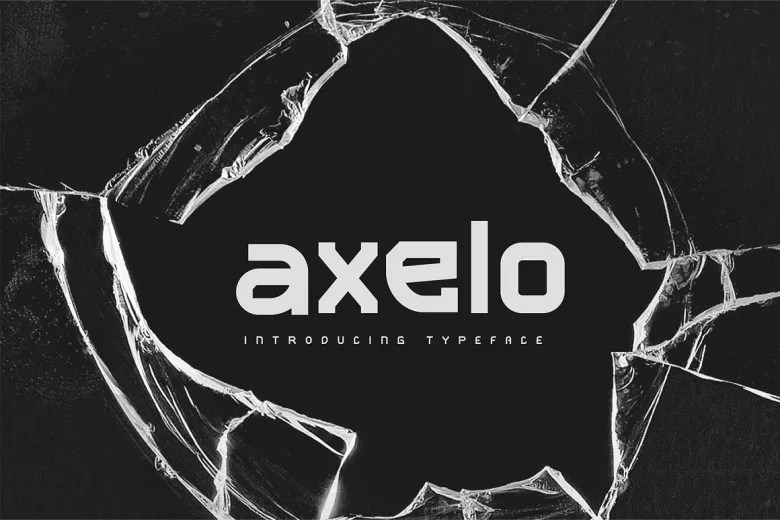
Axelo Font
Meet Axelo, the modern show typeface designed to bring a touch of the future to your projects. Perfect for technology-themed designs, sci-fi aesthetics, and forward-thinking projects, Axelo’s futuristic font enhances typography with its sleek, cutting-edge style.
Whether you’re crafting innovative designs or welcoming change, Axelo adds a bold, modern edge to your work.